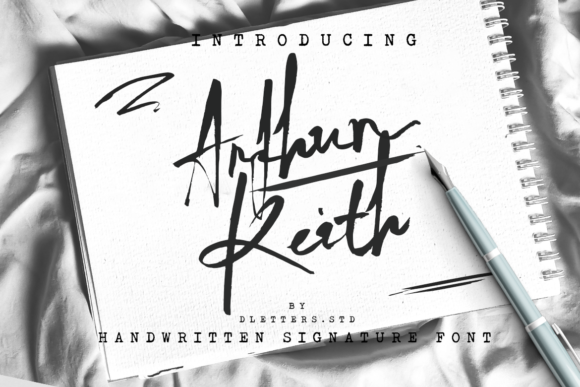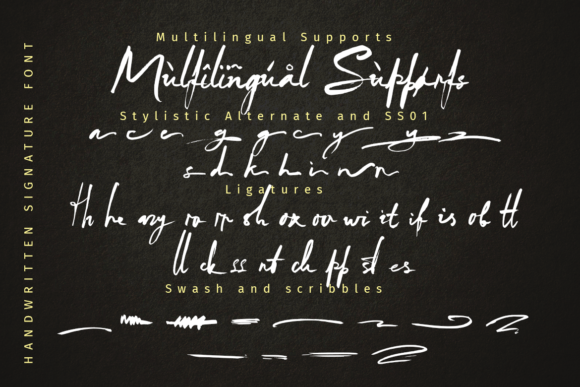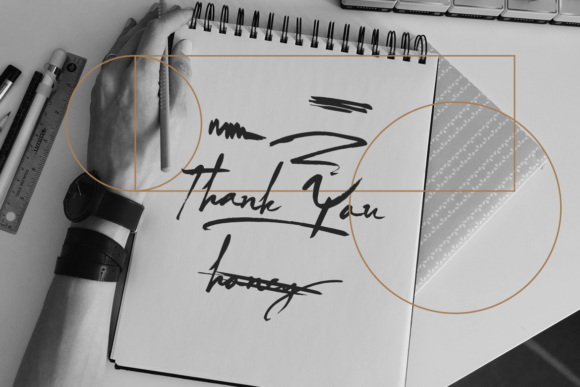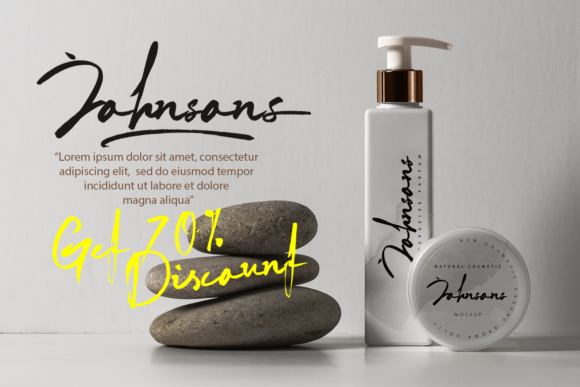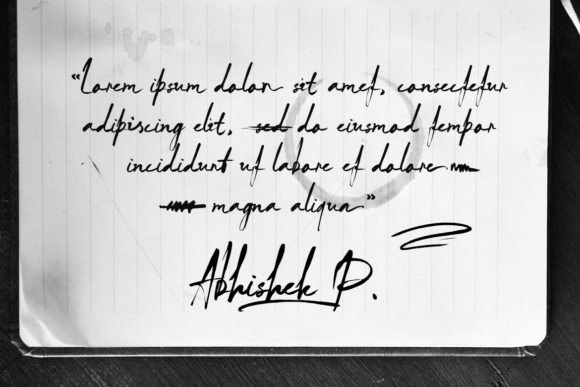
About Arthur Keith Font
Arthur Keith is a smooth and stylish handwritten font. It features well balanced characters, and as a result, it fits into a wide range of designs. This font is PUA encoded which means you can access all of the glyphs and swashes with ease!